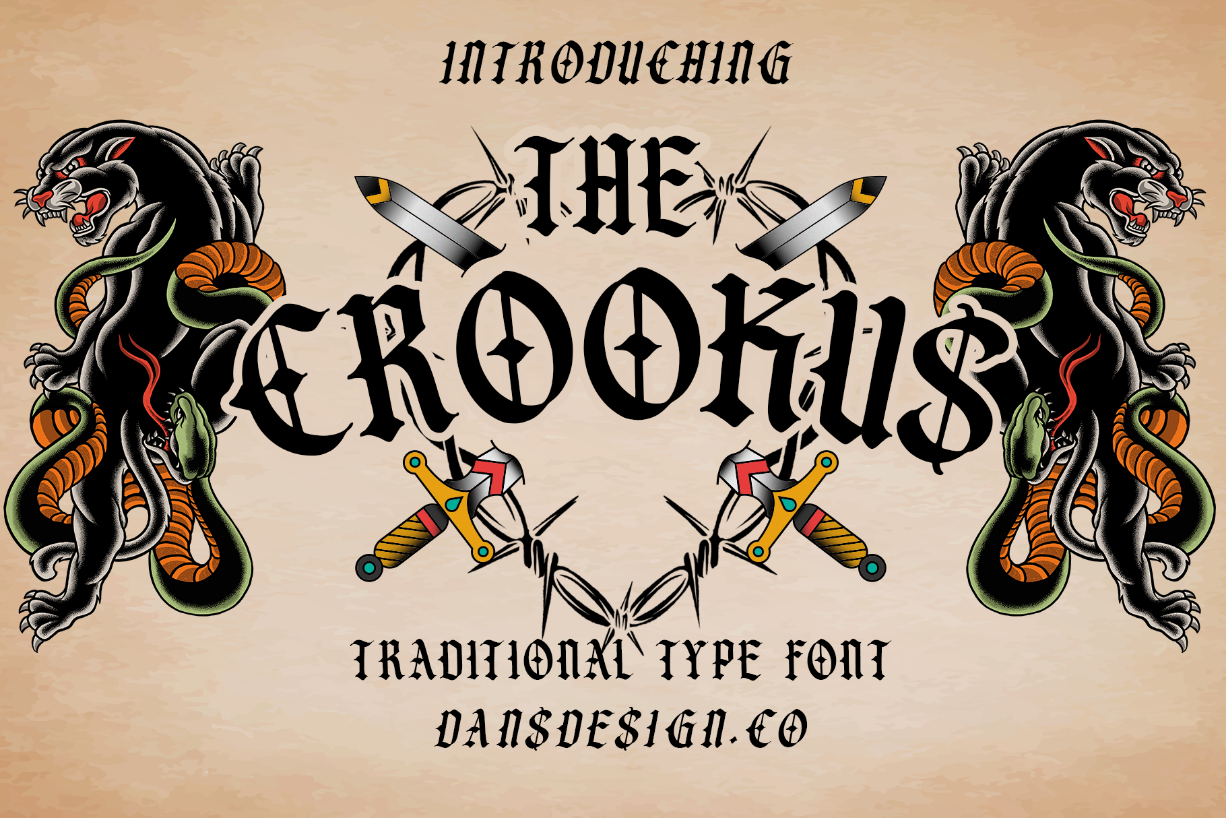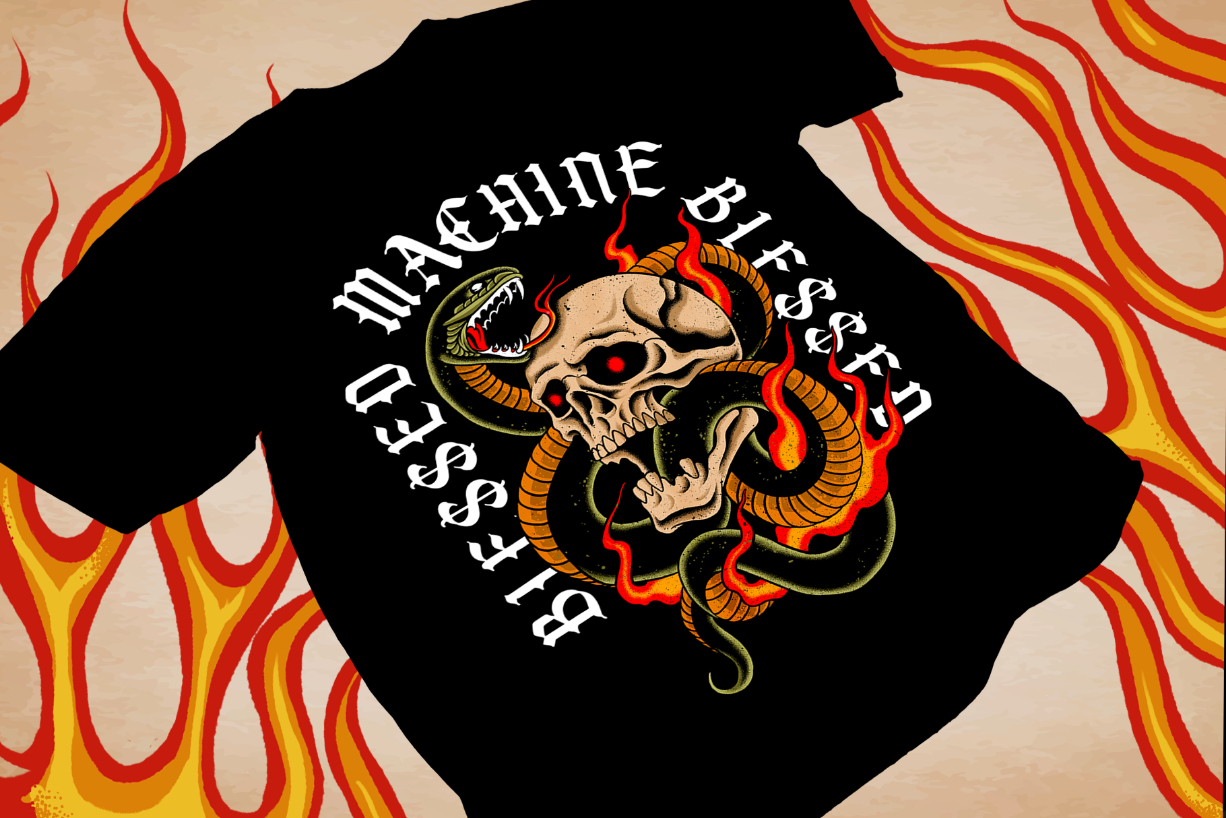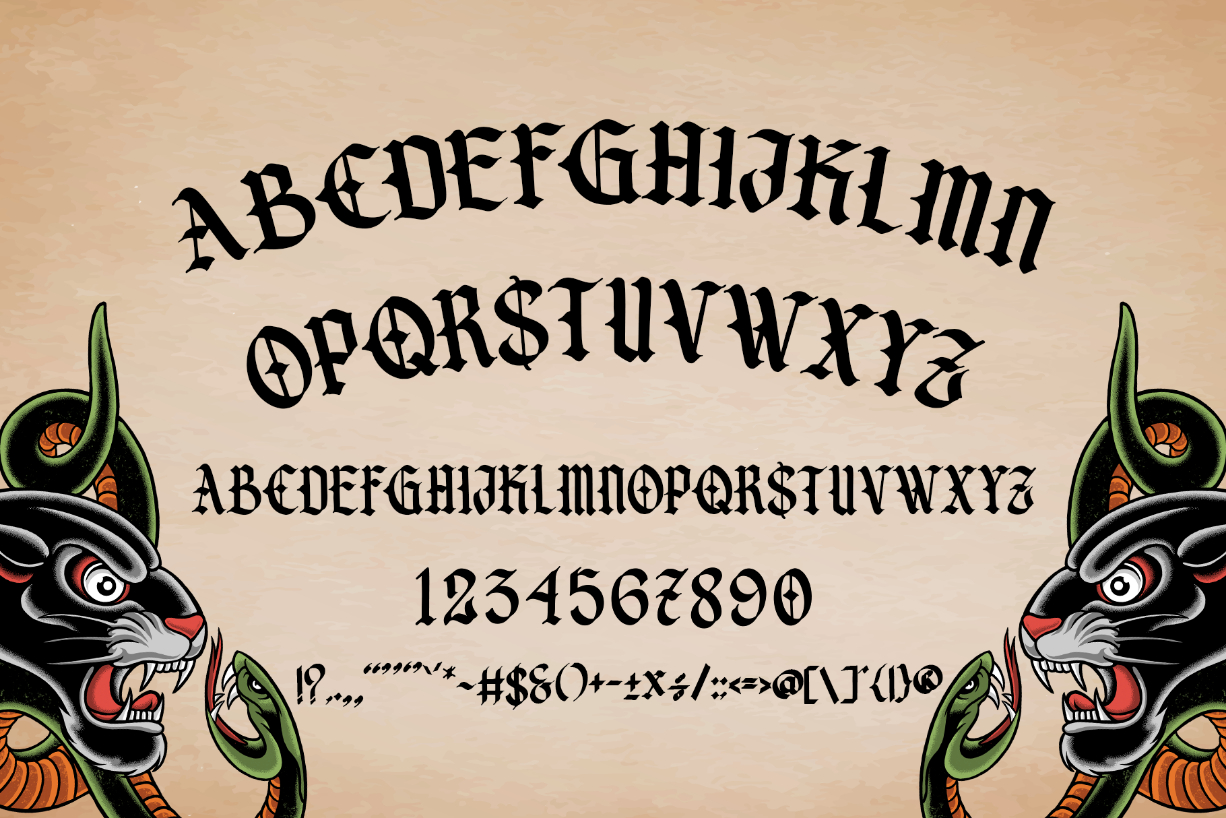
About The Crookus Font
The Crookus is a cool and imposing blackletter font. Whatever the topic, this font will be a wonderful asset to your font library, as it has the potential to enhance any creation.